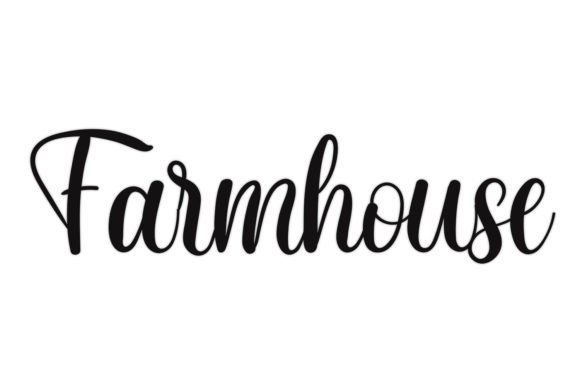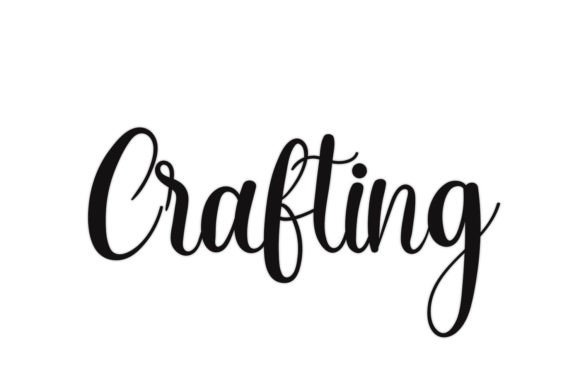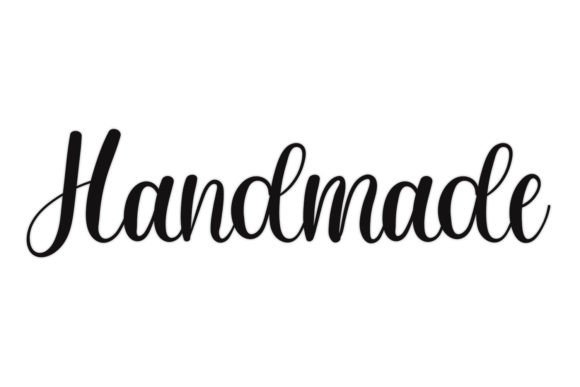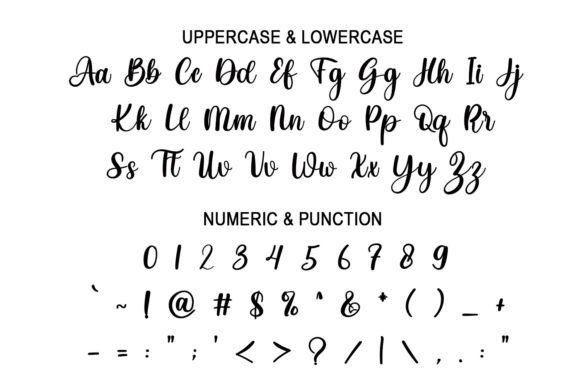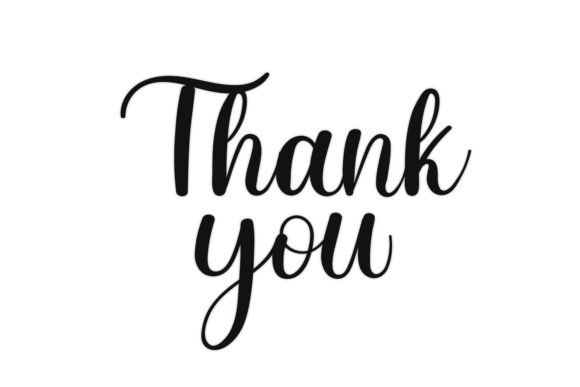
For designers, finding the perfect font can be the key to unlocking that magic. That’s where the Branding Font comes in – a flowing handwritten font that exudes elegance and sophistication. Its distinct style is perfect for creating spectacular designs that leave a lasting impression.
With the Branding Font, designers can add a touch of personality to their projects, making them truly unforgettable. Its timeless style ensures that your designs will never go out of fashion, making it a valuable addition to any designer’s toolkit.
Key Features of Branding Font
- Font Family: Branding Font is a custom-designed font family, offering a range of styles and weights to suit various design needs.
- Character Set: The font includes a comprehensive character set, covering Latin, Cyrillic, and Greek alphabets, as well as a range of punctuation and special characters.
- Unique Characteristics: The font features a unique blend of modern and classic elements, with a distinctive flair that sets it apart from more traditional font families.
Branding Font Review
Overall, I’m impressed with the versatility of Branding Font. Its unique blend of modern and classic elements makes it suitable for a wide range of applications, from logos to business cards. ✨ The font’s bold and clean design effectively communicates professionalism and trustworthiness.
- Excellent legibility, making it perfect for body text
- Comes in a variety of weights and styles, allowing for great flexibility
- Works well in both digital and print media
- Has a modern yet timeless feel
- Can be quite expensive, especially for larger projects
- Not as customizable as some other fonts
- May not be suitable for projects with a more playful or whimsical tone
- Some users may find the font too bold or overwhelming
- ⚠️ Does not come with extensive character sets or languages
Overall, I would recommend Branding Font for projects that require a professional and trustworthy image. While it may have some limitations, its strengths far outweigh its weaknesses.